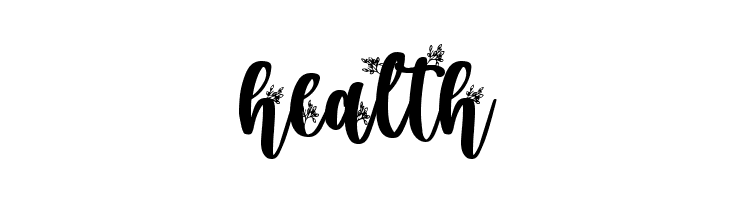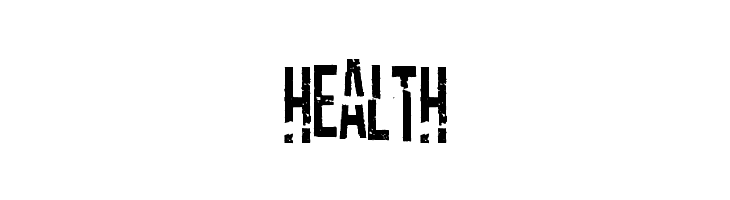
Pink Sans 100 Font
A bold, geometric font with strong, angular lines and a modern aesthetic.
Pink Slab 130 Font
A bold, geometric slab serif font with strong, block-like serifs and high contrast.
Pink Sans 130 Font
A bold, geometric font with strong, angular lines and a modern style.
Pink Slab 100 Font
A bold slab serif font with strong, block-like serifs and a modern yet timeless design.
A.C.M.E. Secret Agent Font
A playful, handwritten font with a bold and friendly style.
Top Secret Without Lines Bold Font
A bold, stencil-style font with a rugged, distressed look.
A.C.M.E. Secret Agent Bold Font
A bold, playful font with rounded, slanted letterforms and a handwritten feel.
Top-Secret-Bold Font
A bold, stencil-style font with a distressed, vintage appearance.
Código Secreto Font
A bold, playful font with a whimsical and dynamic style.
Secrets Font
A playful, handwritten font with smooth curves and a casual style.
A.C.M.E. Secret Agent Italic Font
A playful, handwritten script font with an italicized, dynamic style.
Top Secret Stamp Font
A bold, distressed font with a vintage, stamp-like appearance.
Pink Slab 070 Font
A bold slab serif font with strong, geometric serifs and a commanding presence.
Secret Code Font
A clean, minimalist font with geometric, thin strokes and high legibility.
Anderson The Secret Service Font
A bold, dynamic font with sharp angles and smooth curves.
Secret Wurps Font
A playful, rounded font with a casual, hand-drawn style.
Top Secret Font
A bold, stencil-style font with high contrast and geometric shapes.
Secret Files Font
A bold, decorative font with a distressed, three-dimensional look.
DKPrinceFrog Font
A playful, hand-drawn font with bold, rounded characters and quirky frog silhouettes.
Girls Have Many Secrets Font
A playful handwritten font with rounded, casual letters.